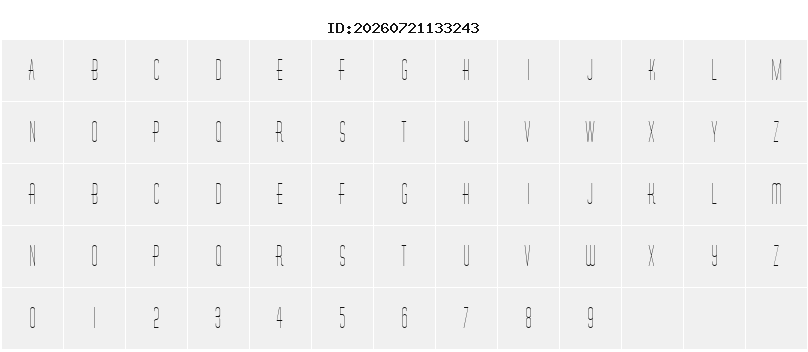
FfdHuxleyVertical.ttf is a modern, elegant sans-serif font designed for ultimate readability and visual harmony. Perfect for branding, headlines, web design, and print materials.